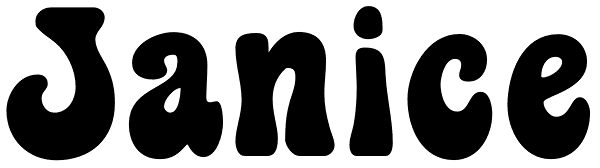
Janice
After making Jimi, the proverbial classic rock poster font, we needed to create another psychedelic font, but this time including a set of lowercase letters. We named it Janice, after Janice Joplin, the popular American 1960s singer and perfect...